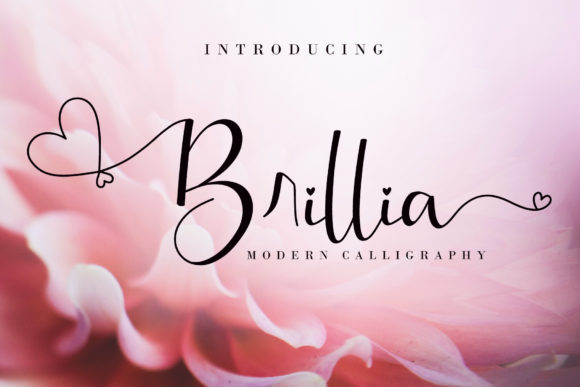
Step into the world of Brillia Font, where elegance and charm intertwine to create a font that dances on the page. Brillia, a script font born from the creative minds at AEN Creative Studio, captures the essence of modern calligraphy, transforming your words into works of art.
With its soft hand-lettered strokes and authentic feel, Brillia is the perfect font for crafting wedding invitations that exude romance and sophistication. Imagine your guests' eyes lighting up as they receive these beautifully scripted invitations, feeling the love and care poured into every letter. Brillia's graceful curves and flowing lines will make your wedding stationery unforgettable, leaving a lasting impression on your special day.
Beyond wedding invitations, Brillia's versatility shines in creating stunning stationary art. Whether you're designing elegant greeting cards, mesmerizing posters, or eye-catching flyers, Brillia adds a touch of magic to your creations. Its enchanting style captivates audiences, drawing them into your designs and leaving them in awe of your creativity. From whimsical birthday cards to heartfelt thank-you notes, Brillia transforms the ordinary into the extraordinary.
In the realm of social media, Brillia commands attention like no other. Its captivating curves and playful charm make your posts stand out in the crowded digital landscape. Whether you're promoting your business, sharing your passions, or simply connecting with friends, Brillia's unique style adds a touch of personality and elegance to your social presence. Your followers will be mesmerized by your captivating posts, eager to engage with your content and share it with their world.
With Brillia, the possibilities are endless. Its versatility extends to product packaging, branding, and even website design. Let your imagination soar as you create custom logos, eye-catching labels, and enchanting website layouts that reflect your brand's essence. Brillia's timeless beauty transcends trends, ensuring that your designs remain relevant and captivating for years to come.